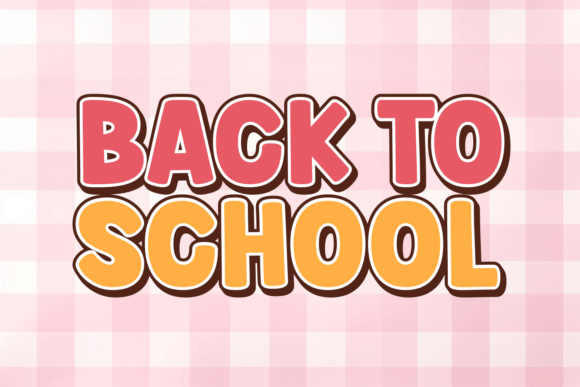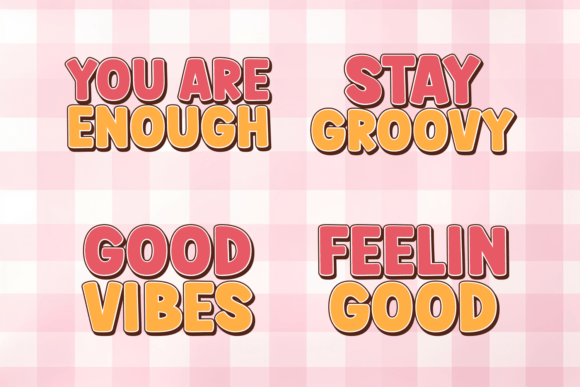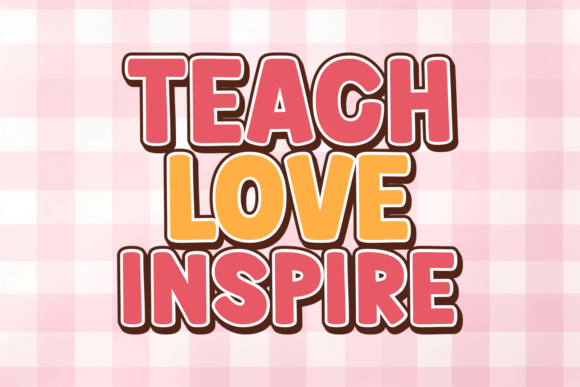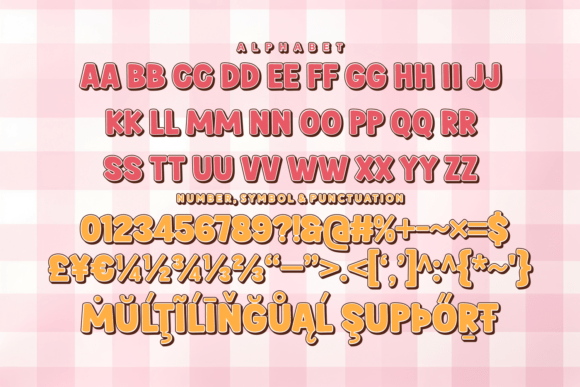
Introducing Always Chunky: The Ultimate Display Font for Fun and Creativity
Are you tired of using the same old fonts for your designs? Look no further! Presenting “Always Chunky”, a display font that effortlessly puts a dash of fun back in typography. This exciting new font is primarily designed for children’s product packaging and birthday party themes, but its versatility knows no bounds. In this article, we’ll explore the features and benefits of Always Chunky, and how it can add a playful twist to various design projects.
A Blast from the Past: Nostalgic Vibe and Retro Aesthetics
Always Chunky is inspired by the bold, retro aesthetics of the 1970s. The font’s candy store-like appeal is sure to evoke a sense of nostalgia in anyone who sees it. The chunky, bubble letters are reminiscent of a bygone era, when design was all about being bold, colorful, and playful. With Always Chunky, you can bring a touch of that retro vibe to your designs, making them stand out in a sea of sameness.
Perfect for Kids and Adults Alike
While Always Chunky is primarily designed for children’s product packaging and birthday party themes, its appeal extends far beyond kids. The font’s playful, yet stylish design makes it perfect for a wide range of projects, including digital planners, stickers, YouTube thumbnails, and more. Whether you’re a designer, crafter, or DIY enthusiast, Always Chunky is sure to become a favorite in your font collection.
Maximalist Trend and Readability
Always Chunky rolls perfectly with the maximalist trend, which emphasizes bold, eye-catching designs. The font’s chunky letters provide excellent readability, making it essential for logo fonts, summer fonts, and branding. The stylish, groovy alphabet is a pure delight to look at, providing a vibrant nod to the psychedelic era. Whether you’re designing a logo, brochure, or website, Always Chunky is sure to make a statement.
A Unique Mix of Modern, Boho, and Vintage Styles
Always Chunky owns the font game with its unique mix of modern, boho, and vintage styles. The font’s bubble letters gift the user a fun, cute, yet bold feel that upholds the essence of being expressive and creative. This versatility makes it a favorite among designers, who can use it to create a wide range of designs, from playful and whimsical to stylish and sophisticated.
Perfect for T-Shirts, Stickers, and More
Always Chunky is a perfect fit for T-shirt designs, stickers, and other DIY projects. The font’s bold, chunky letters are sure to make a statement on any surface, from fabric to paper to digital screens. Whether you’re creating custom apparel, party decorations, or promotional materials, Always Chunky is the perfect choice.
- Unique and playful design: Always Chunky is a one-of-a-kind font that adds a dash of fun to any design.
- Versatile: The font can be used for a wide range of projects, from children’s product packaging to digital planners and stickers.
- Retro aesthetics: Always Chunky is inspired by the bold, retro designs of the 1970s.
- Excellent readability: The font’s chunky letters provide excellent readability, making it perfect for logos, branding, and more.
- Modern, boho, and vintage styles: Always Chunky combines these styles to create a unique and stylish font.
In conclusion, Always Chunky is a display font that is sure to bring a dash of fun and creativity to any design project. With its unique and playful design, versatility, and retro aesthetics, it’s the perfect choice for designers, crafters, and DIY enthusiasts alike. Whether you’re creating children’s product packaging, digital planners, or T-shirt designs, Always Chunky is the perfect font to add a playful twist to your work.